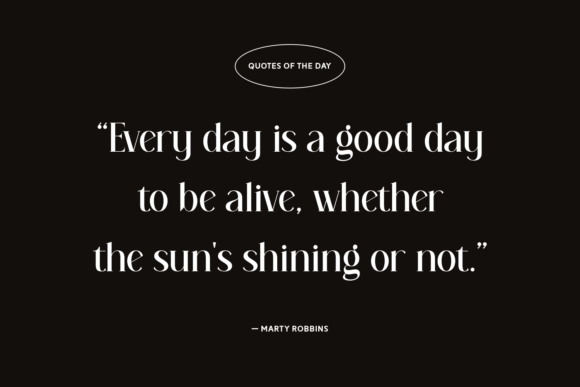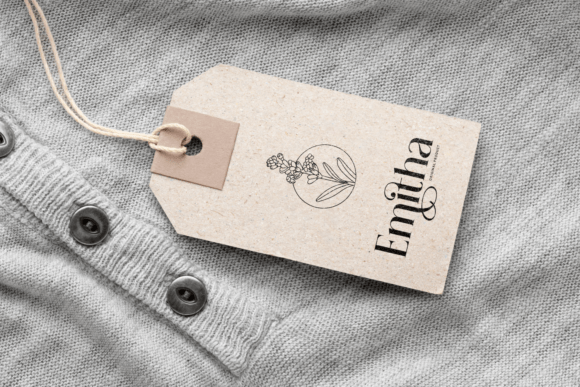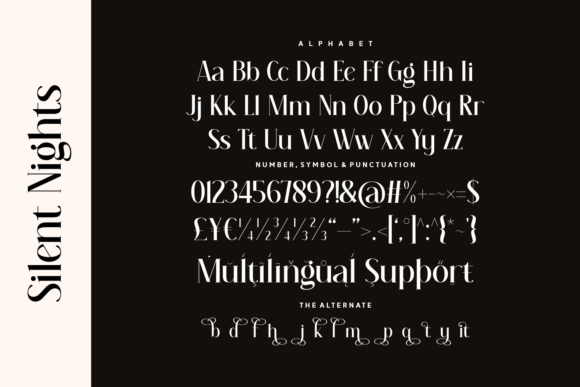
Introduction to Silent Nights Font
Silent Nights is a romantic serif font with elegant curves and luxurious swashes that create a sense of charm and sophistication.
Perfect for invitations, branding, packaging, and editorial designs, this typeface blends timeless beauty with modern refinement Silent Nights adds a dreamy, graceful touch to any project, making it unforgettable.